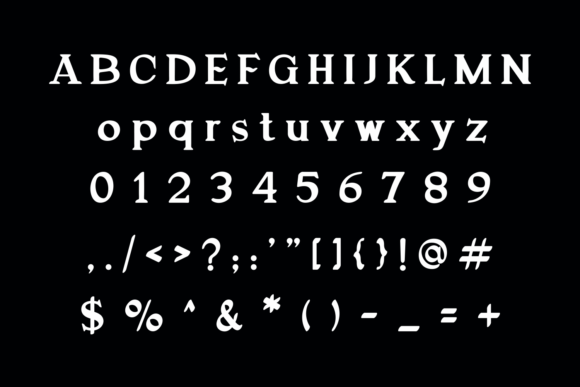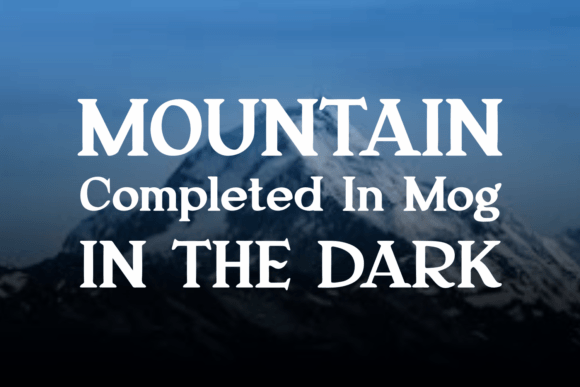
Dreksan Font: Elevate Your Designs with a Cool and Neat Serif Font
Are you tired of using the same old fonts in your designs? Look no further than the Dreksan Font, a stylish and versatile serif font that’s perfect for a wide range of design projects. In this article, we’ll dive into the world of Dreksan Font and explore its features, benefits, and uses.
What is Dreksan Font?
Dreksan Font is a modern serif font that’s designed to add a touch of elegance and sophistication to your designs. Its unique blend of classic and contemporary elements makes it an excellent choice for designers and crafters looking for a font that stands out from the crowd.
Key Features of Dreksan Font
- Cool and Neat Design: Dreksan Font boasts a sleek and modern design that’s perfect for creating visually appealing designs.
- Serif Font: The font features classic serifs that add a touch of sophistication and elegance to your designs.
- Stylish and Versatile: Dreksan Font is highly versatile and can be used in a wide range of design projects, from logos and branding to headings and body text.
- Easy to Read: The font is designed to be easy to read, making it perfect for use in body text and other applications where readability is key.
Benefits of Using Dreksan Font
So why choose Dreksan Font for your design projects? Here are just a few benefits of using this amazing font:
- Adds Visual Interest: Dreksan Font adds a touch of visual interest to your designs, making them more engaging and attention-grabbing.
- Enhances Brand Identity: The font’s unique design makes it an excellent choice for logos and branding, helping to create a strong and memorable brand identity.
- Improves Readability: Dreksan Font’s clear and easy-to-read design makes it perfect for use in body text and other applications where readability is key.
- Highly Versatile: The font can be used in a wide range of design projects, from print and digital media to web design and more.
Uses of Dreksan Font
Dreksan Font is highly versatile and can be used in a wide range of design projects, including:
- Logos and Branding: The font’s unique design makes it an excellent choice for logos and branding.
- Headings and Titles: Dreksan Font is perfect for use in headings and titles, adding a touch of elegance and sophistication to your designs.
- Body Text: The font’s clear and easy-to-read design makes it perfect for use in body text.
- Web Design: Dreksan Font can be used in web design, adding a touch of visual interest and sophistication to your website.
Tips for Using Dreksan Font
Here are a few tips for getting the most out of Dreksan Font:
- Use it Sparingly: While Dreksan Font is highly versatile, it’s best to use it sparingly to avoid overwhelming your design.
- Experiment with Different Sizes: The font looks great in a variety of sizes, so don’t be afraid to experiment to find the perfect size for your design.
- Pair it with Other Fonts: Dreksan Font pairs well with a variety of other fonts, so feel free to experiment with different font combinations.
In conclusion, Dreksan Font is a cool and neat serif font that’s perfect for designers and crafters looking to add a touch of elegance and sophistication to their designs. Its unique blend of classic and contemporary elements makes it an excellent choice for a wide range of design projects, from logos and branding to headings and body text. With its ease of use, versatility, and stylish design, Dreksan Font is sure to become a favorite in your design arsenal.